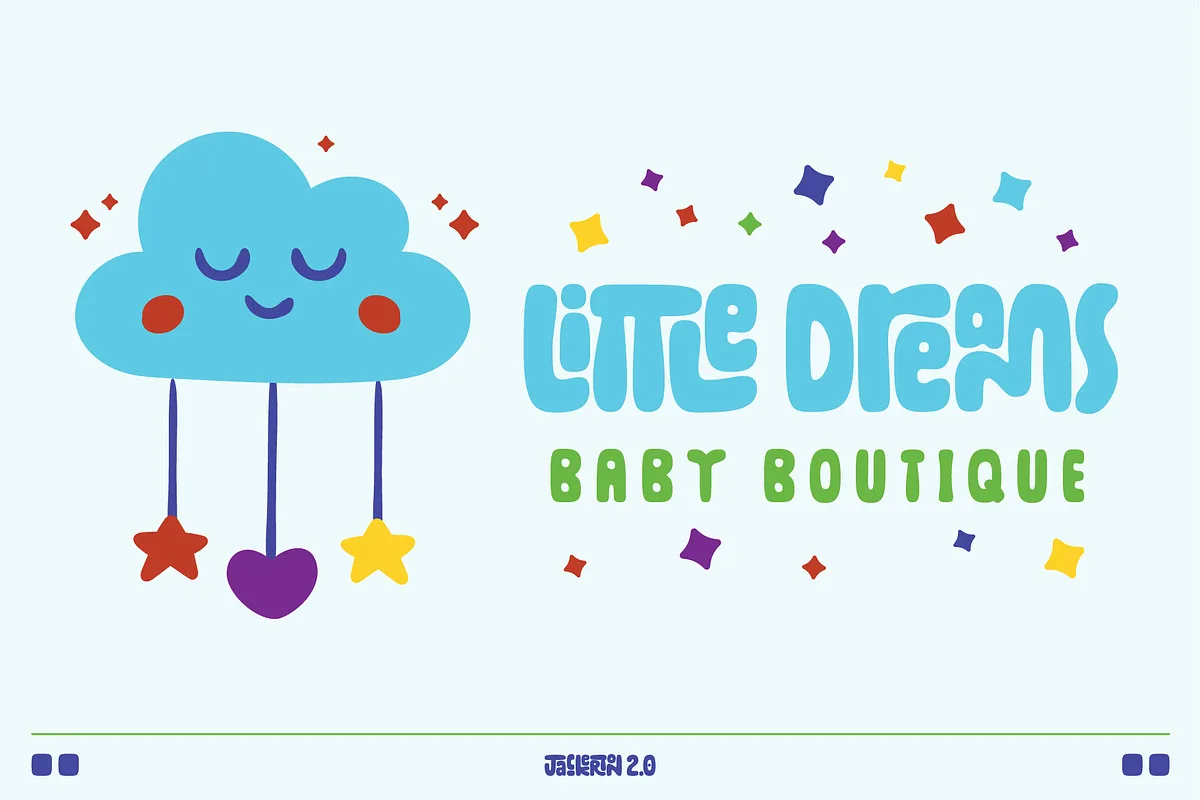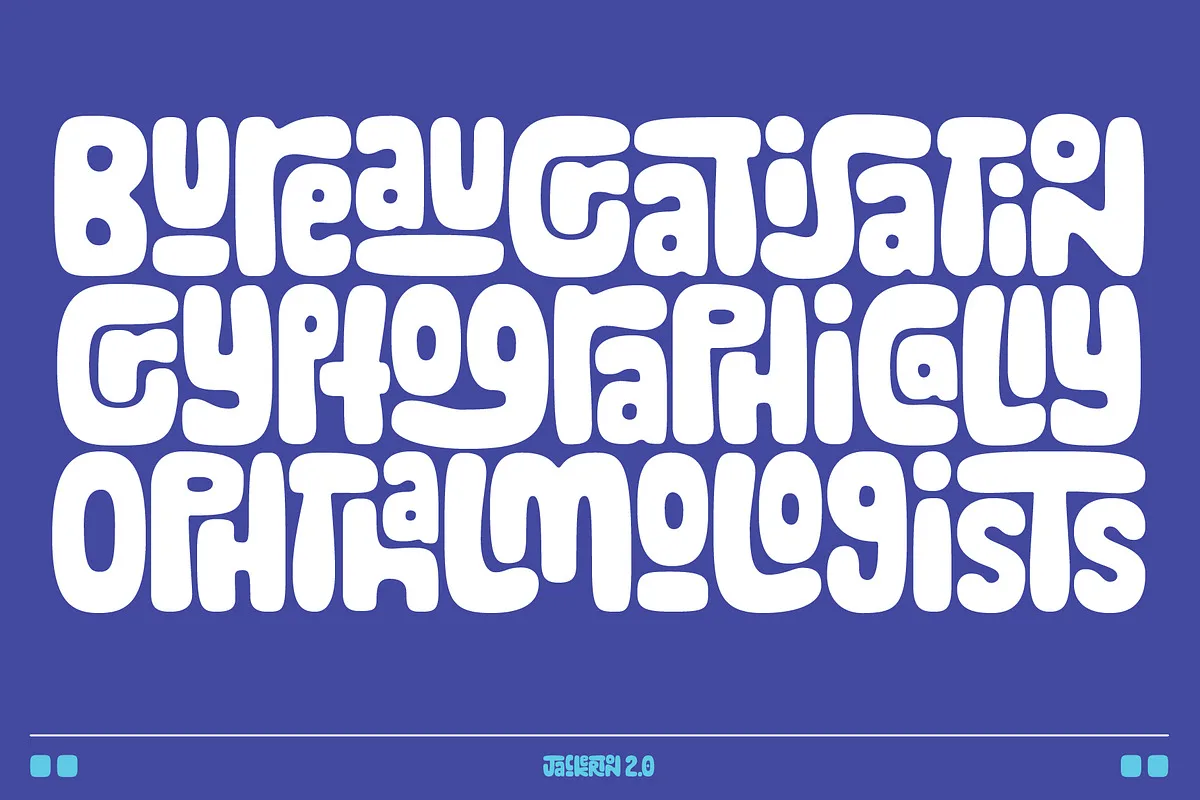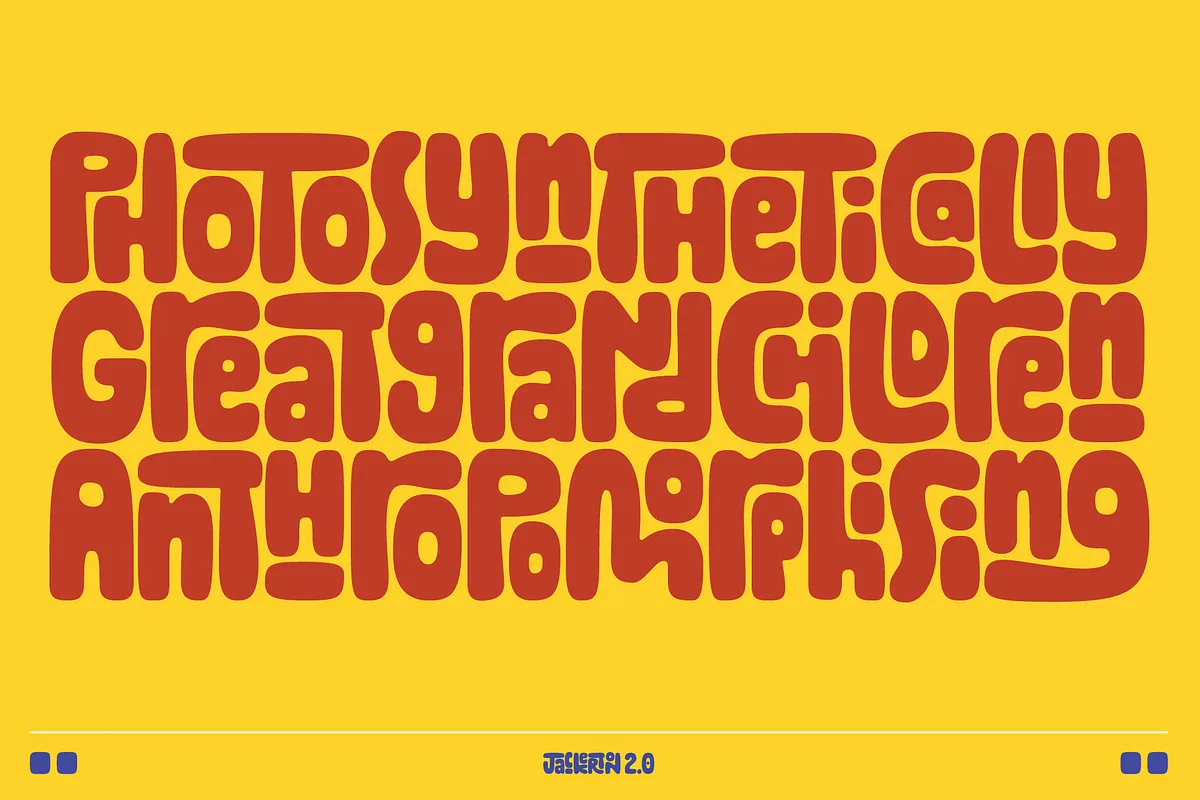
Jackerton is a playful, child-like typeface inspired by my father’s doodles. Every word is a puzzle with pieces changing and shifting as you type. This font is built on ligature substitutions. To easily take advantage of these OpenType features, you will need a design application like those found in the Adobe Creative Suite. If you do not have such an application, this font will not work for you.
All 348 original glyphs have been completely redrawn from the ground up with smoother curves and consistent widths throughout. Multilingual support for over 100 Latin-based languages. A whole bunch of creative license has been taken with the diacritics.